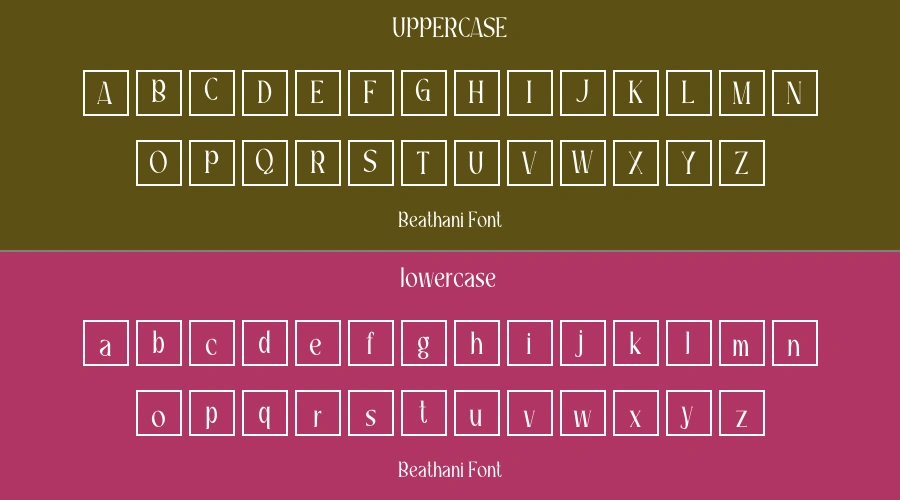
About Beathani Font
Beathani Font embodies typographic excellence through its masterful combination of perfect spacing and personality. Created for technical manuals, this typeface delivers exceptional originality and creative impact across all applications. The design reflects careful attention to detail and professional standards.
Advanced capabilities include distinctive engineered curves and versatile authentic details, giving designers creative control. When used in identification tags, Beathani Font exhibits remarkable file optimization. The harmonious balance between bowl shape and market positioning sets this typeface apart.